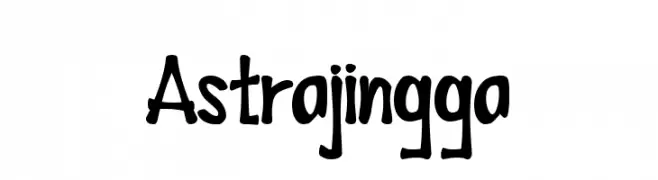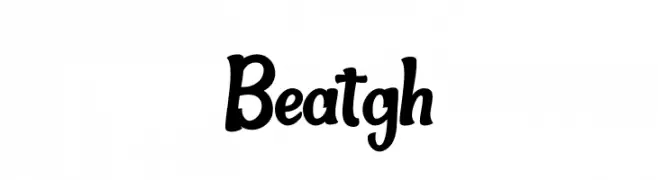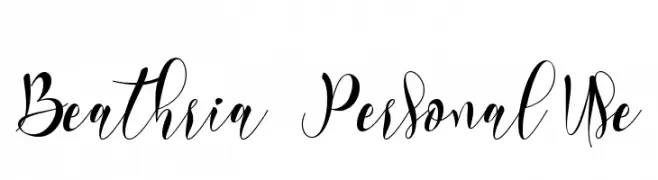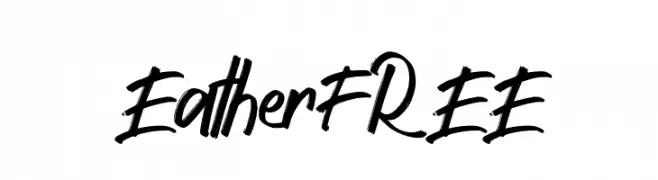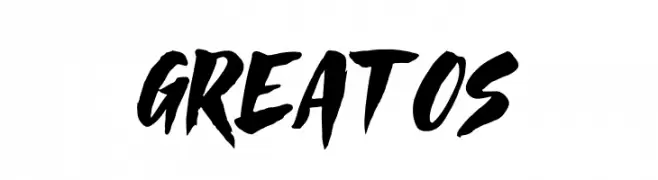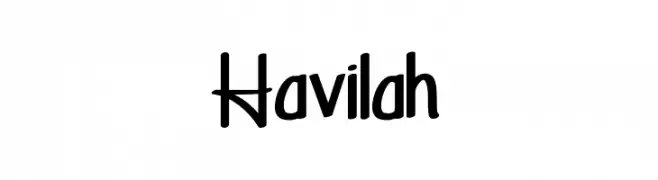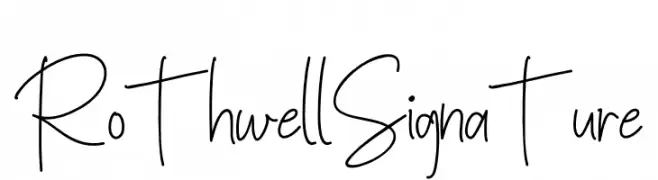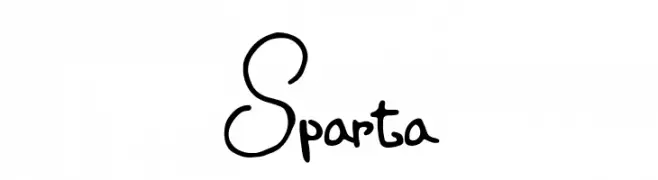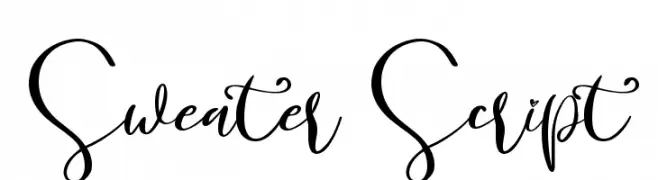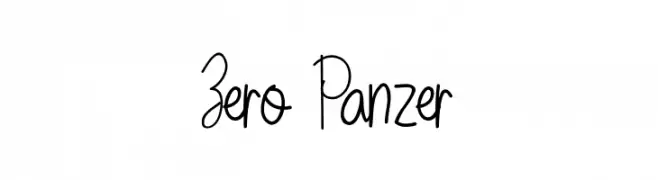
A flowing, cursive font with elegant, connected strokes.
A bold, brush-style font with dynamic and expressive strokes.
A bold, playful script font with dynamic curves and a whimsical style.
A playful, handwritten-style font with a whimsical and friendly appearance.
A playful, whimsical handwritten font with lively, flowing strokes.
A playful, handwritten font with tall, narrow letters and whimsical strokes.
A playful, hand-drawn font with a whimsical and dynamic style.
A bold and expressive script font with fluid, flowing letterforms.
A playful, handwritten font with elongated, irregular characters.
An elegant, flowing script font with sweeping curves and delicate strokes.